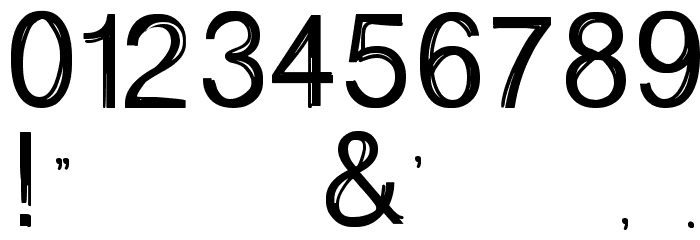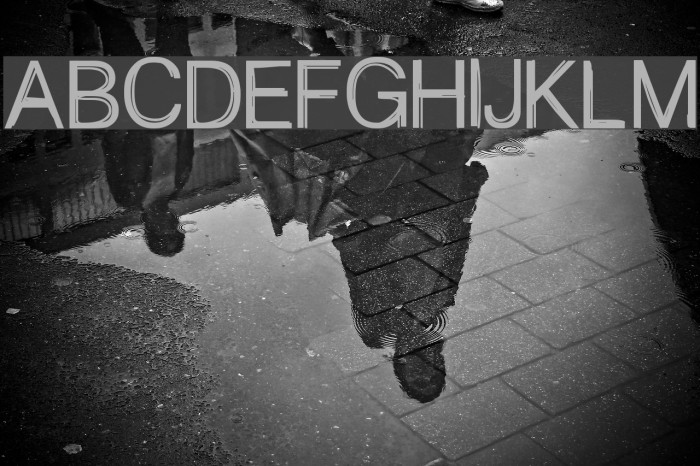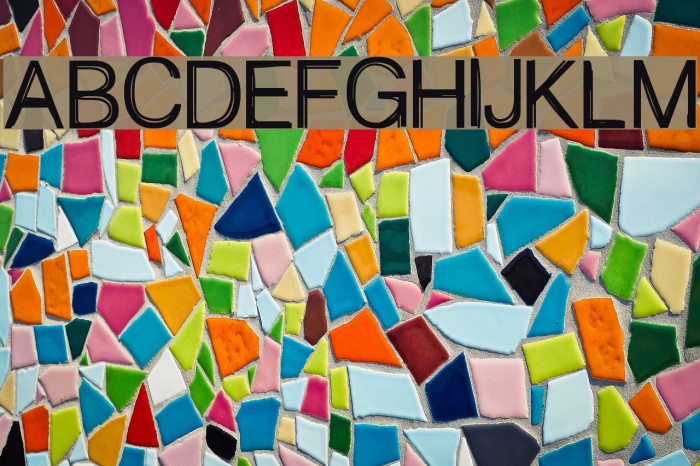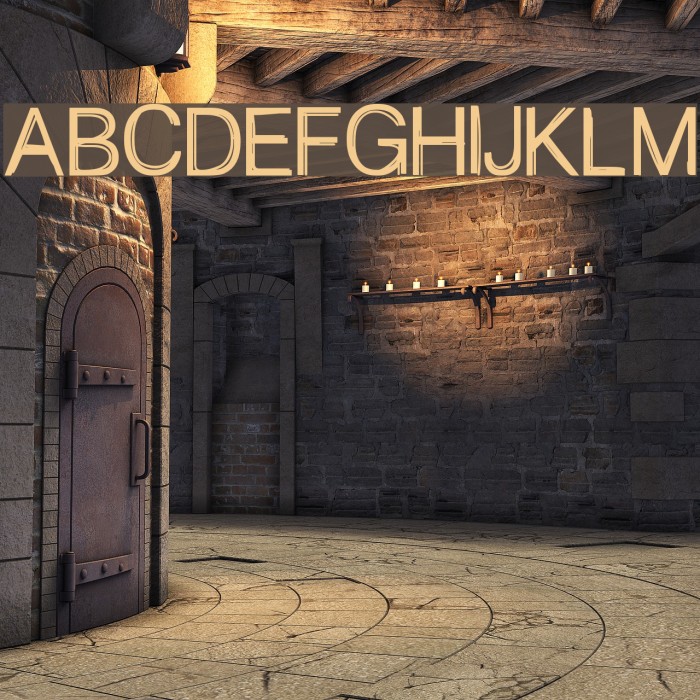
sciallo Font
sciallo Description
This font features a modern and clean sans-serif style with a geometric structure. The characters are uniform in width, providing a balanced and harmonious appearance. The uppercase letters are bold and assertive, while the lowercase letters maintain a consistent and smooth flow. The numbers are clear and easily distinguishable, making them ideal for various applications. Special characters are designed with simplicity and clarity in mind, ensuring they complement the overall aesthetic. The font's design is versatile, suitable for both digital and print media, and can be used effectively in a variety of contexts.
| Use Case | Headlines, Body text, Logos |
| Proposed Projects | Ideal for branding, web design, advertising, and editorial projects. |